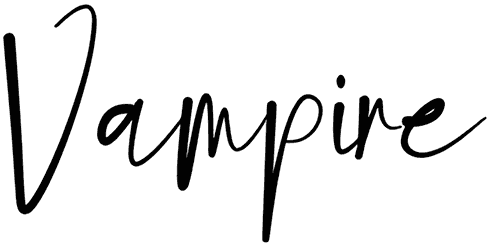
Vampire Font
The Vampire is your rescuer if you’re in charge of a project with zero margins for error. This scary handwritten font is great for making bold statements and can be used in a wide range of print and digital designs, such as album covers, movie titles, and video game logos. In case you’re interested, we have many helpful resources available for free in our library.
VAMPIRE
~ stylish script font ~VAMPIRE is a relaxed and stylish script font that exudes distinctiveness and class. This font was particularly crafted for those who need a beautiful and refreshing look to their designs.